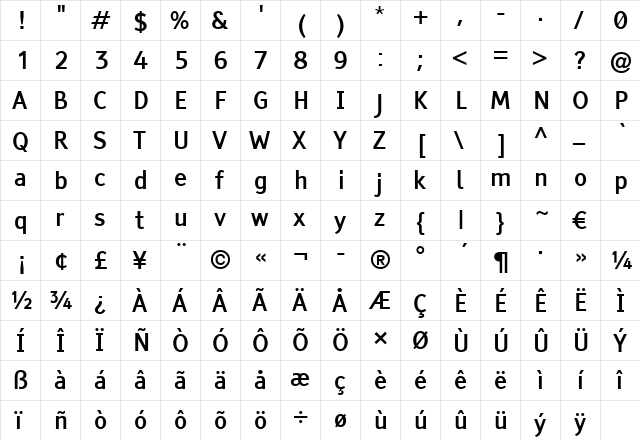
Tiresias PCfont Z Bold
Design Context for Tiresias PCfont Z Typeface
Tiresias PCfont Z takes a measured approach to typography — its balanced proportions and neutral character make it a reliable workhorse for both digital and print work. The heavy weight commands attention and anchors typographic hierarchies.